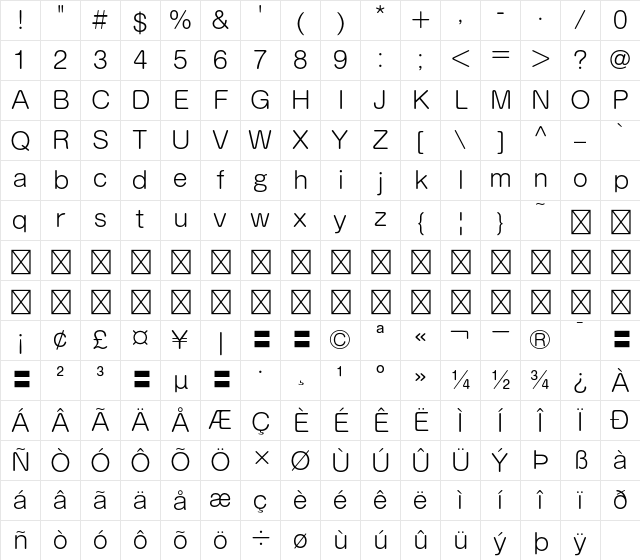
A-OTF Maru Antique Std L
Style: L
Design Context for A-OTF Maru Antique Std
A-OTF Maru Antique Std wears its vintage influences proudly, with letterforms that recall mid-century signage, classic packaging, and nostalgia-driven design.
Font Pairing: Combine A-OTF Maru Antique Std with a simple slab or neutral sans - period-accurate companions reinforce the vintage feel without competing for attention.
Pro Tip: Lean into A-OTF Maru Antique Std's period character by pairing it with aged paper textures, muted colour palettes, and vintage illustration styles.